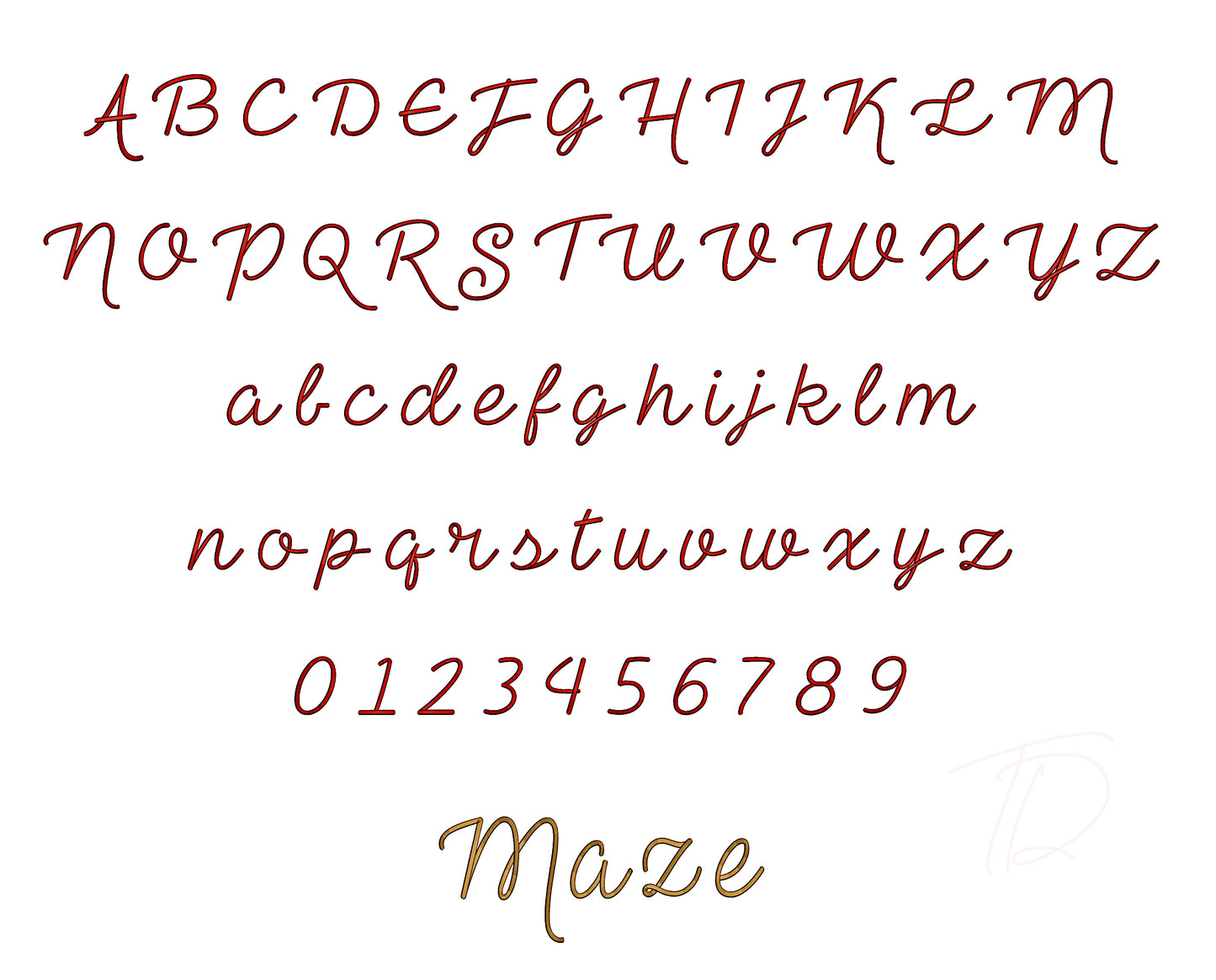
Amazing 3D puff embroidery digital font. Embroidery font in 3D puff foam. BX format
Amazing 3D puff embroidery digital font
This font comes with letters in 3 sizes, A-Z, a-z, 0-9